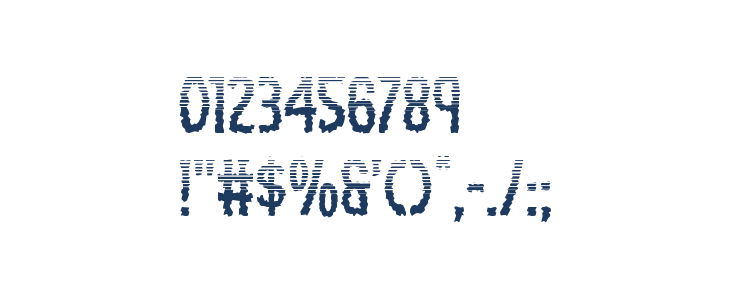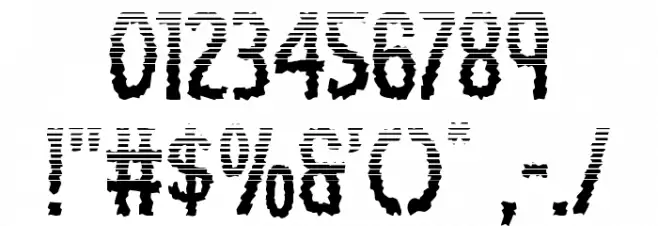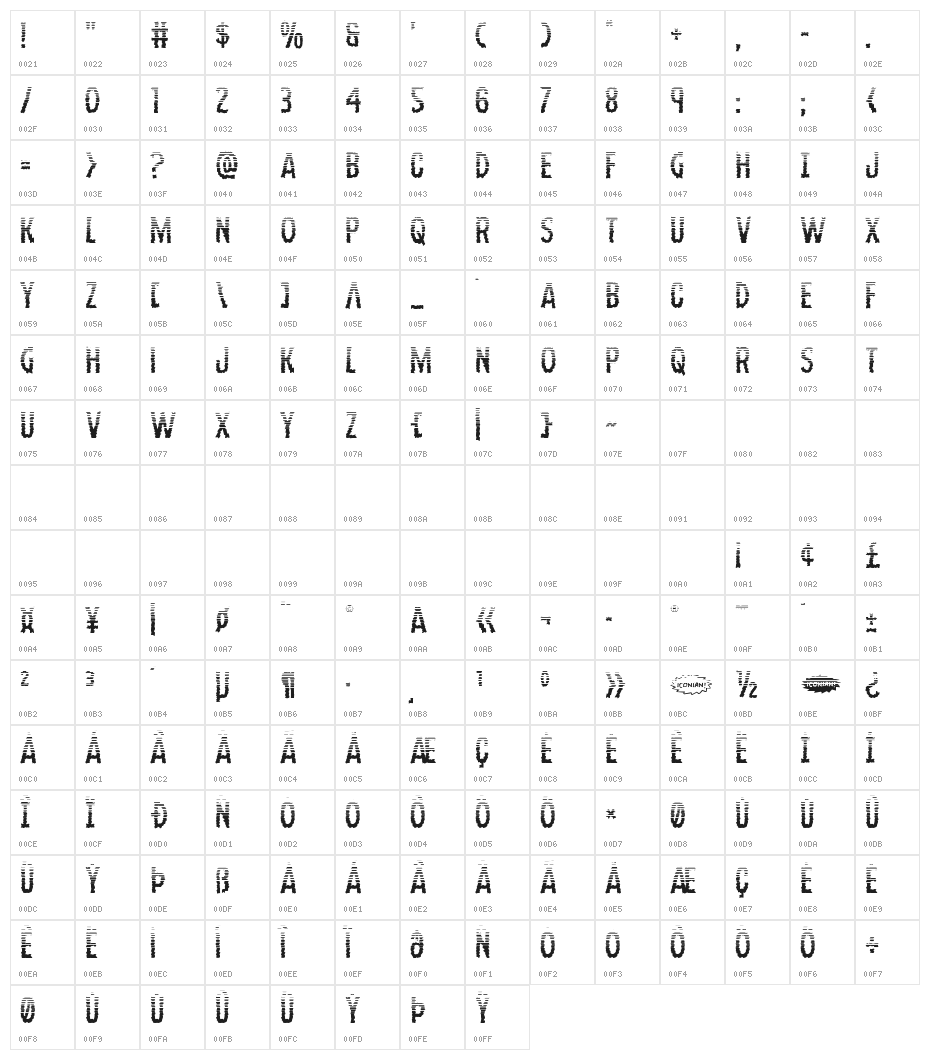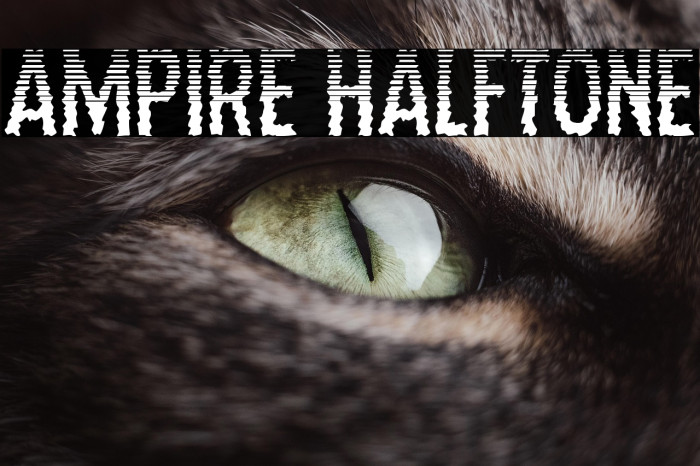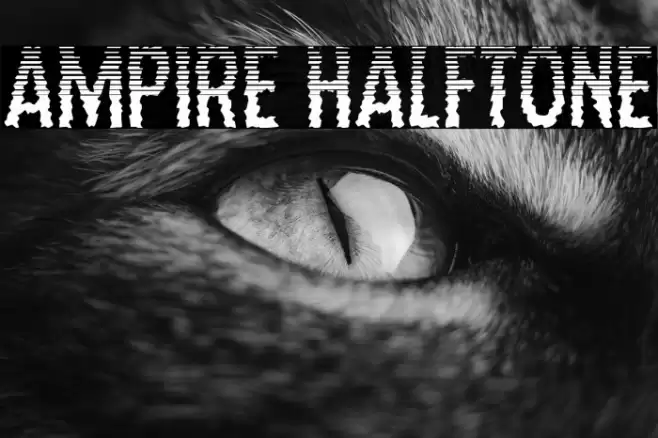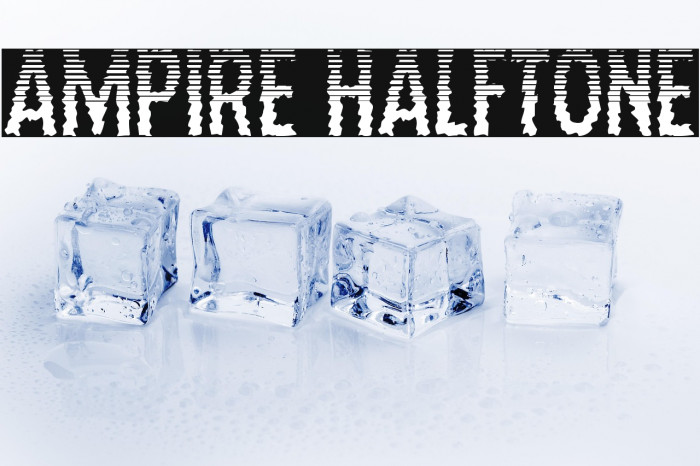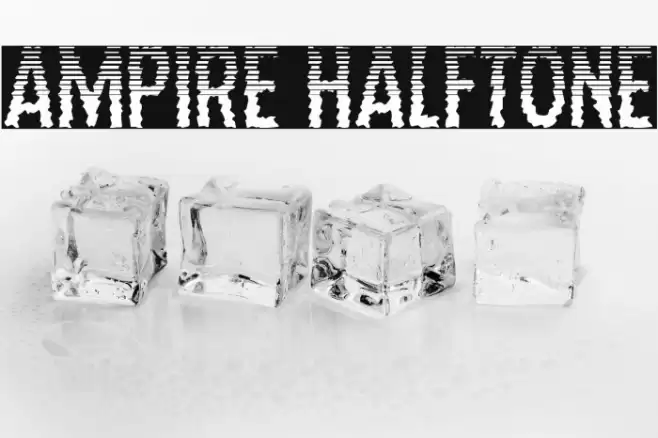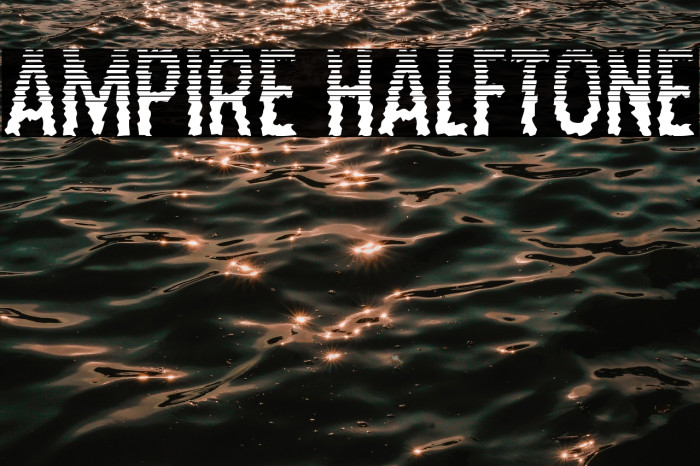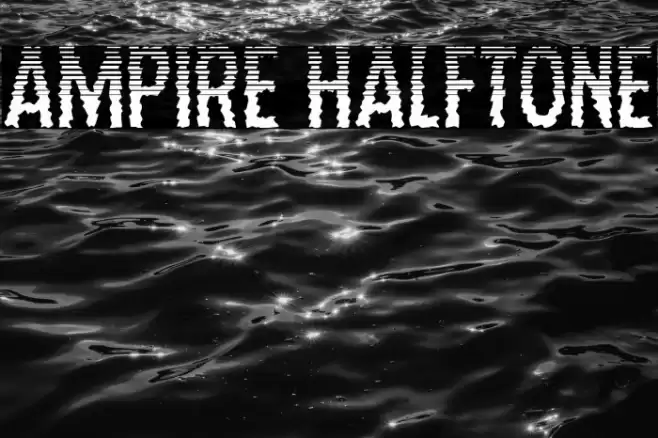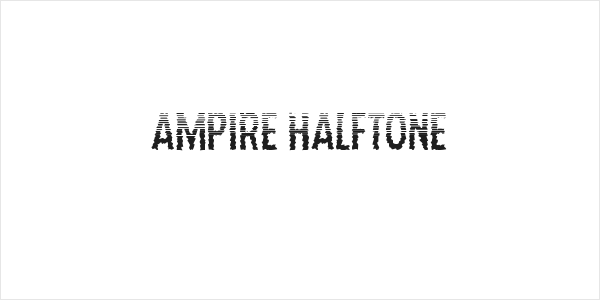
Ampire Halftone Font
Ampire Halftone Description
This font features a unique halftone effect that gives it a textured, almost distressed appearance. The characters are bold and impactful, with a jagged, irregular edge that adds a sense of movement and energy. The halftone pattern creates a dynamic visual effect, making it stand out in any design. The uppercase and lowercase letters maintain a consistent style, while the numbers and special characters are equally distinctive. This font is ideal for projects that require a bold statement or a vintage, retro feel.
| Proposed Projects | Ideal for poster designs, album covers, vintage-themed projects, and branding that requires a bold, eye-catching typeface. |